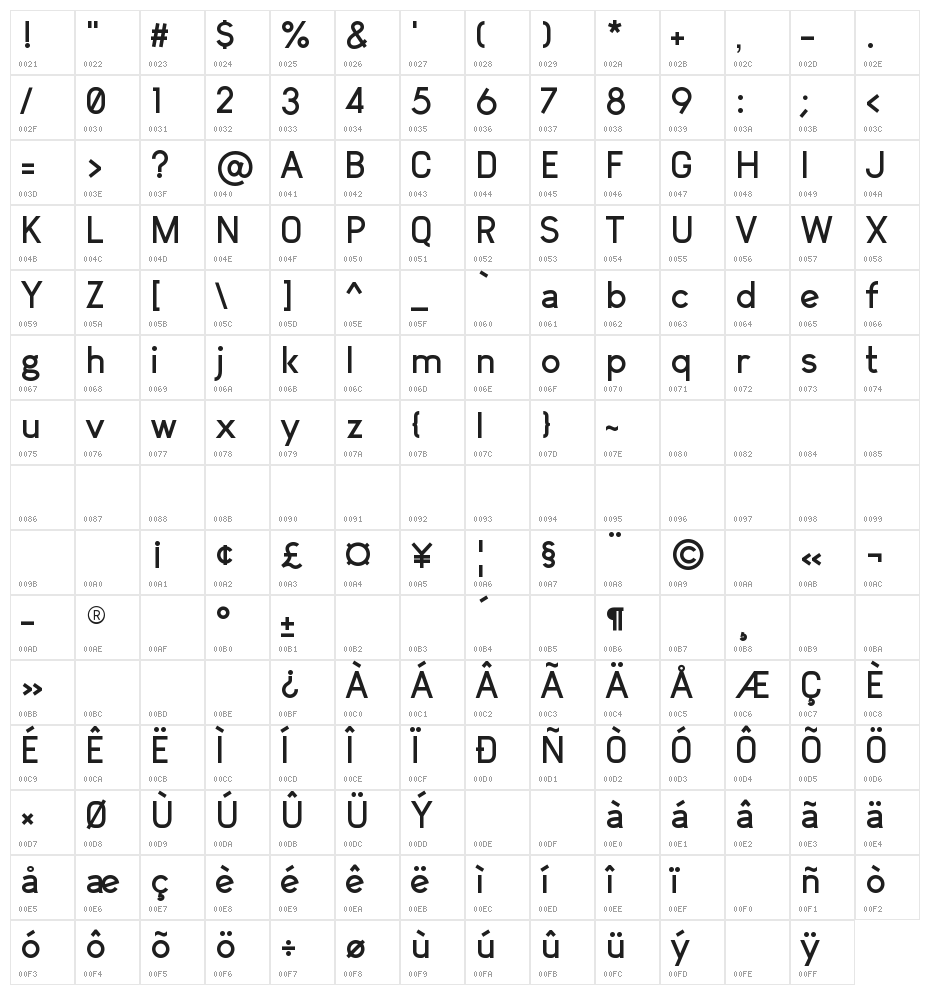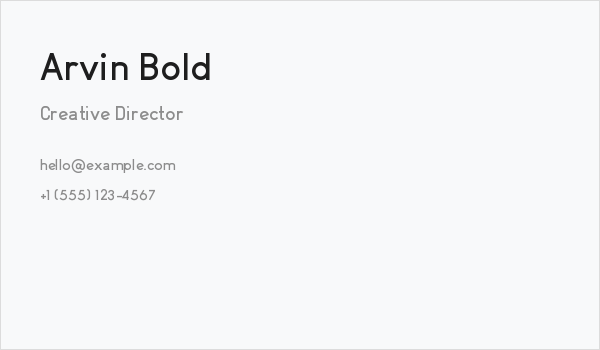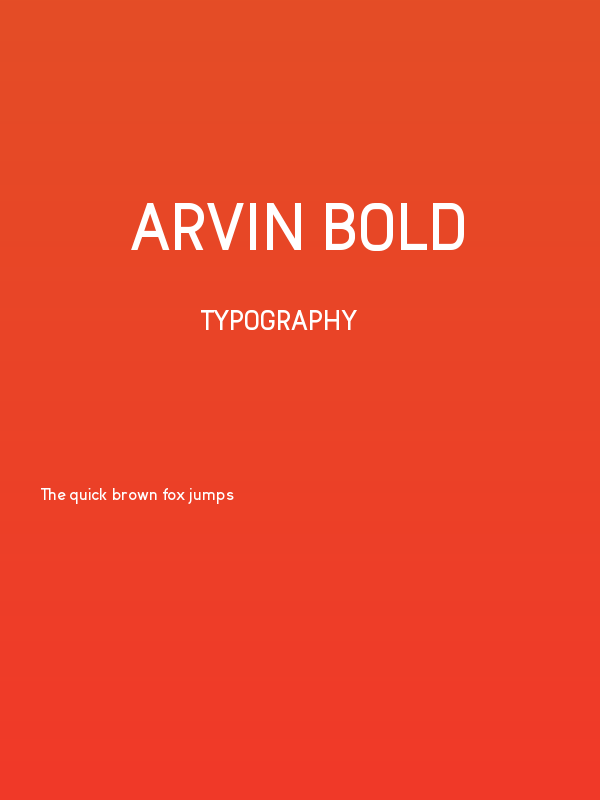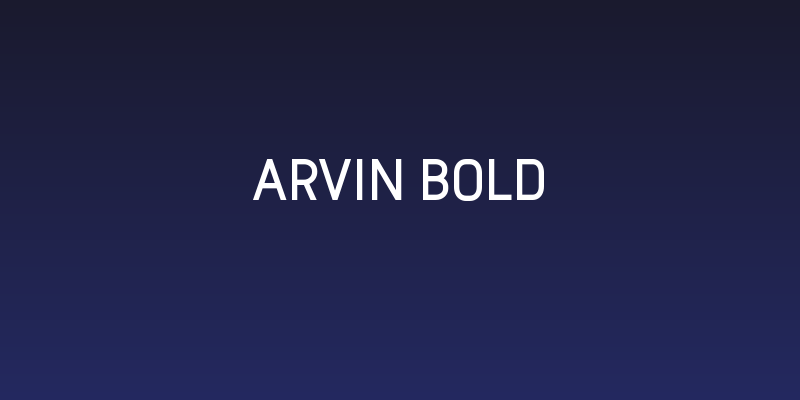
Arvin Bold Font
Arvin Bold Description
This font features a clean and modern sans-serif design with a bold weight, making it highly legible and impactful. The characters are evenly spaced with a normal width, providing a balanced and harmonious appearance. The strokes are consistent in thickness, offering low contrast, which contributes to its straightforward and contemporary style. The font includes a full set of uppercase and lowercase letters, numerals, and a variety of special characters, making it versatile for various design needs.
| Use Case | Headlines, Logos, Digital Interfaces |
| Proposed Projects | Ideal for branding, advertising, headlines, and digital interfaces where clarity and modernity are essential. |